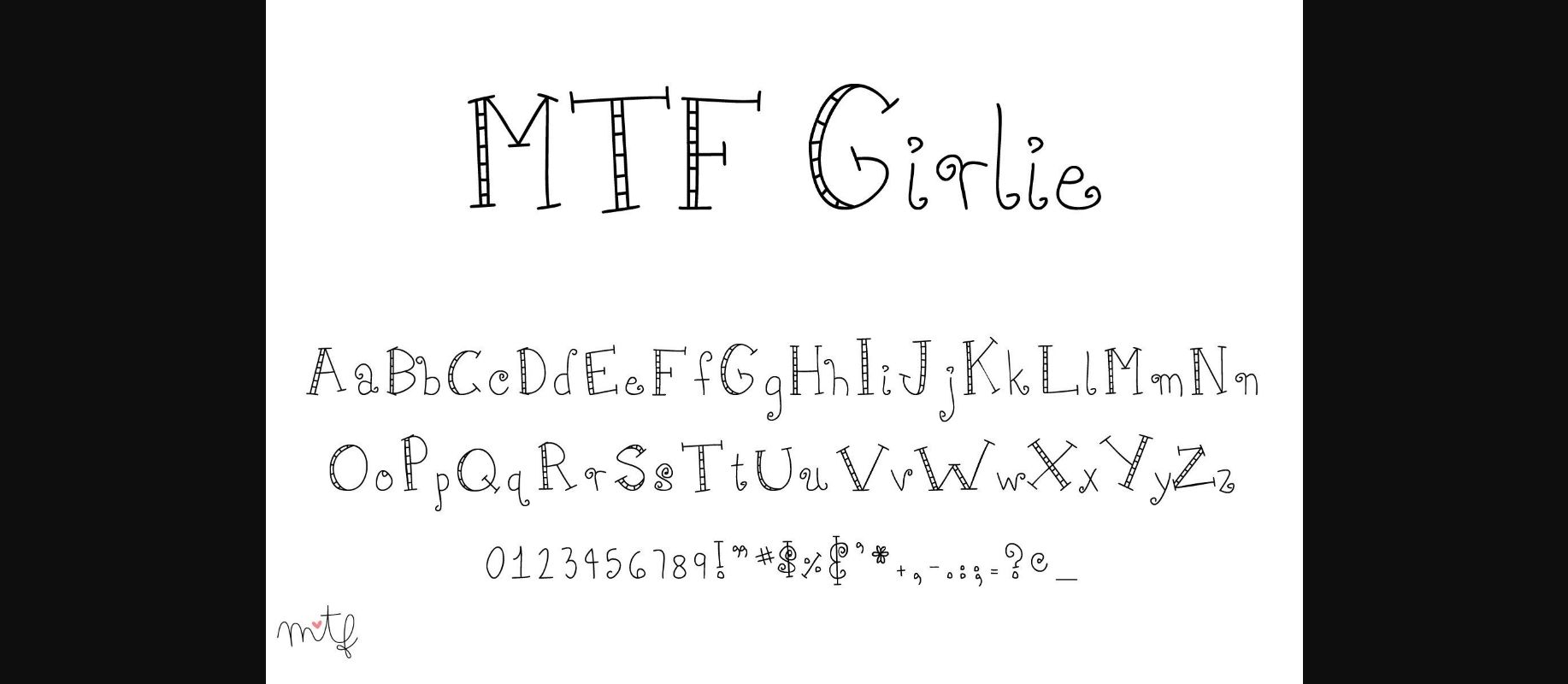
HomeDecorative FontsGirlie Font Decorative Fonts Girlie Font FacebookXPinterestWhatsApp 1 of 1 ... About Girlie Font Girlie is a cheerful and cute decorative font that can add tons of personality to your designs. Despite its swirly decorative letters, Girlie is highly legible. It is perfect for any project! DOWNLOAD ON CREATIVE FABRICAThis font is sold and delivered by Creative Fabrica. Font Canyon may earn a commission if you buy through this link. People also explored MiloBely Font Sublime Font Blenda Darling Lovely Font Penthinks Font Anthaya Font Soemadi Font Bunny Font The Qlickers Font Destomed – Brush Font 401 0 TagsGirlieGirlie Font Previous articleSticky FontNext articleVHS Glitch 1 Italic Font LEAVE A REPLY Cancel reply Comment: Please enter your comment! Name:* Please enter your name here Email:* You have entered an incorrect email address! Please enter your email address here Website: Save my name, email, and website in this browser for the next time I comment. Personal Use Free BD Medled Personal Use Free Read more about this font Ashay Personal Use Free Read more about this font Hysteria Santa Personal Use Free Read more about this font Indonesia Dermawan Personal Use Free Read more about this font BLOG How to Cut Any Font on Cricut: Convert a Font to SVG (Free) Turn any font into a clean SVG so it cuts crisp on Cricut - a quick 3-step workflow using a free font-to-SVG tool. Exploring Font Trends Top 7 Google Fonts Alternatives for Faster and Privacy-Friendly Web Design (2025) Elegant Wedding Invitation Fonts – Handwritten & Script Fonts